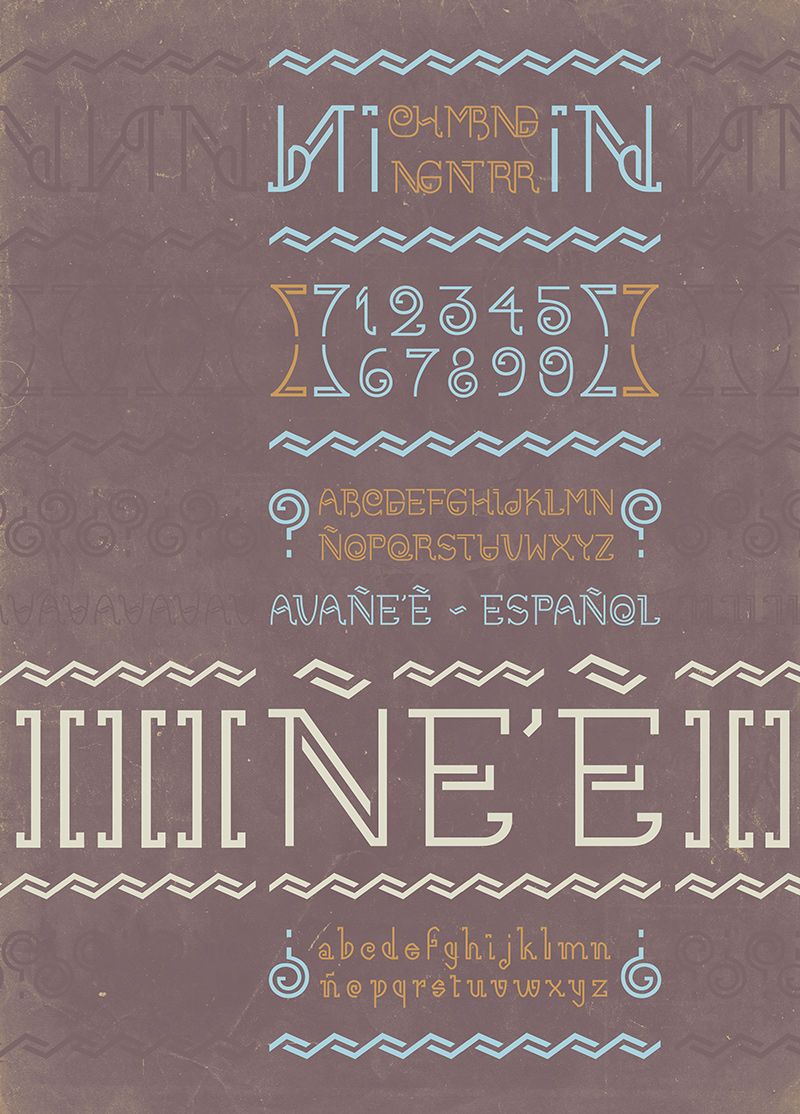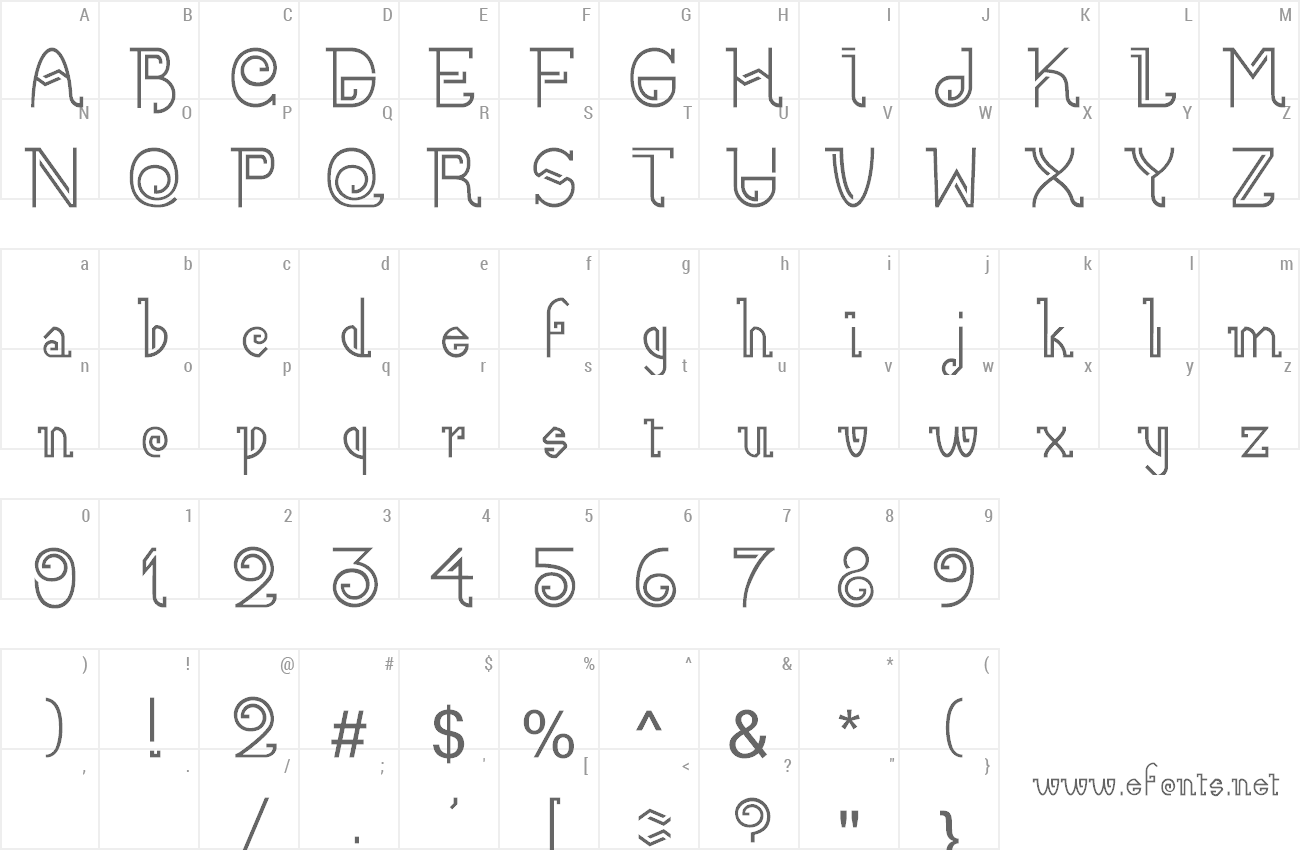
Font name: | Ñe'ê |
Author: | Mica Karaman |
Note by Mica Karaman | |
FREE to use, copy and make commercial use of the font under the condition that you must attribute the work to the author. -- Font based in Guaraní culture. It includes special glyphs and ligatures to write in Guaraní language. -- Tipografía basada en la cultura Guaraní. Incluye ligaduras y caracteres especiales que permiten escribir en guaraní. -- Hope you enjoy it! -- http://be.net/micakaraman |